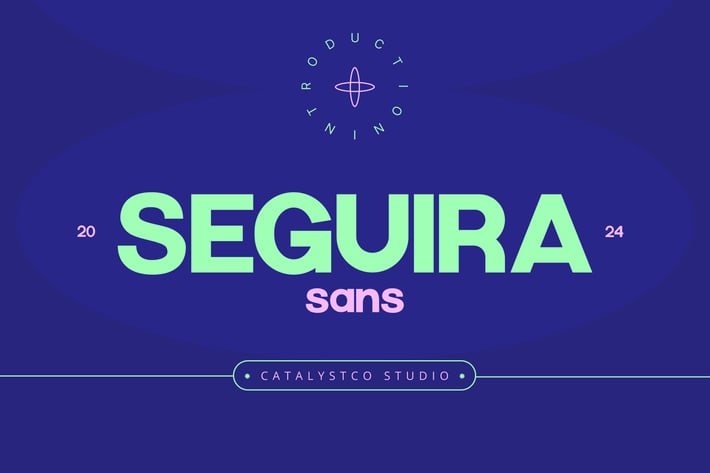
SeguiraSans Sans Serif Font
Seguira Sans Sans Serif Font is a powerful geometric sans-serif with bold confidence and a modern edge. Its clean structure and solid weight give it a futuristic and assertive tone, perfect for impactful digital and print visuals. Crafted for high-impact visual design, Seguira Sans excels in contemporary brand identities, tech-oriented marketing, fashion-forward campaigns, and bold social media visuals. Ideal for designers who want their type to be both stylish and unmistakably strong. With wide-set uppercase letters and smoothly curved lowercase glyphs, Seguira Sans strikes a fine balance between assertive geometry and friendly minimalism. Its consistent weight and modular construction make it both visually pleasing and highly legible in large formats.
Ligatures & Alternate
Numeral & Punctuations
Seguira Sans Sans Serif Font Suitable for branding, posters, editorials, packaging, social media, logos, banners, web displays, presentations, advertising, fashion, tech, and various other creative visual needs.